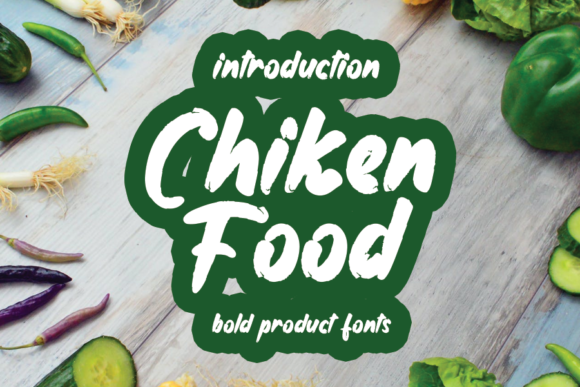
Journey through a realm of enchanting elegance with Chiken Food, a remarkable script font crafted by the artistic hands of andikastudio. Its graceful strokes, inspired by the fluidity of a brush pen, dance across the canvas, evoking a symphony of emotions and leaving an indelible mark on the hearts of beholders.
In the world of social media, Instagram serves as a vibrant stage where creativity takes center stage. Chiken Food emerges as a virtuoso performer, seamlessly harmonizing with the visual tapestry of your Instagram posts. Its inherent charm transforms ordinary captions into captivating tales, effortlessly weaving a spell of engagement that draws your audience into a world of visual delight.
With Chiken Food as your trusted ally, your Instagram presence will blossom into a captivating garden of expression. Its captivating curves and delicate flourishes lend an air of sophistication to your messages, inviting your followers to immerse themselves in a world of visual enchantment. Prepare to witness a surge of likes, comments, and shares as your posts become magnets for attention, propelling your Instagram profile to new heights of popularity.
Elevate your Instagram presence beyond the realm of the ordinary. Embrace Chiken Food, a font that not only adorns your words but also elevates their impact, transforming them into poignant expressions of your creative spirit. Dive into a world of boundless possibilities, where your Instagram posts become captivating narratives that ignite imaginations and leave an everlasting impression.
Submit to the allure of Chiken Food, a font that captivates and enchants. Its enchanting strokes weave a tapestry of elegance, transforming your Instagram feed into a captivating spectacle. Experience the transformative power of Chiken Food and witness the marvel of your Instagram presence soaring to new heights.